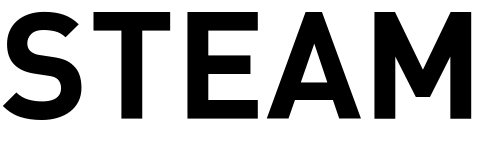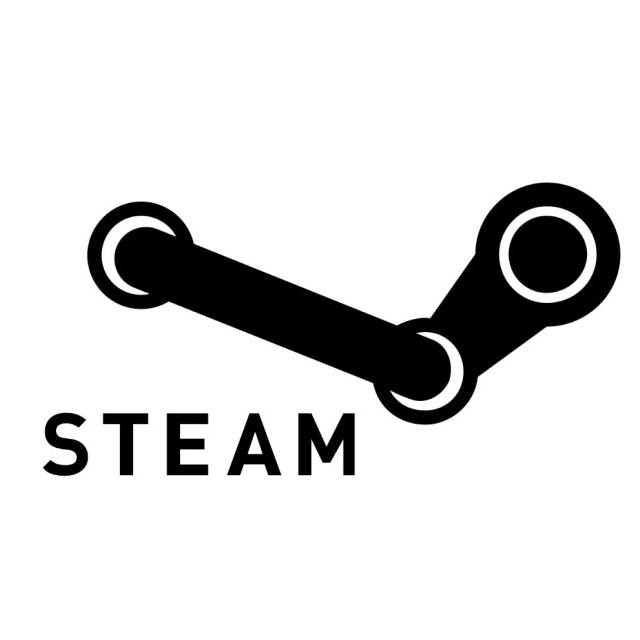
Steam Logo Font
Fonts in UseSteam is a digital distribution platform for video games and software, offering a vast library of titles from various developers and publishers, along with community features and multiplayer capabilities.
The Steam logo features FF Din OT Bold, a realistic sans-serif typeface created in 1995 by Albert-Jan Pool. It draws inspiration from DIN-Mittelschrift and DIN-Engschrift, conforming to the German standard DIN 1451. More details are available here.